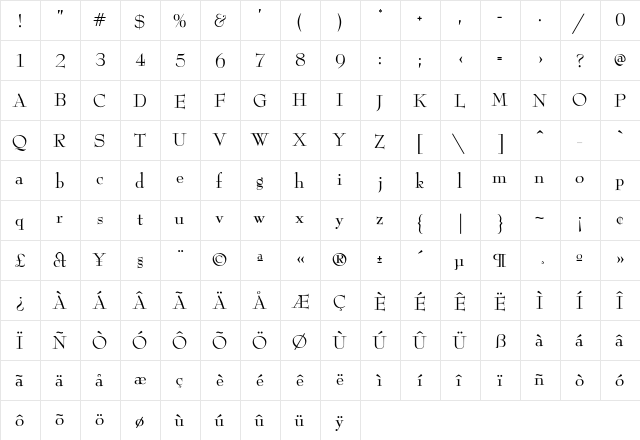
ReedFont Regular
Design Context for ReedFont Typeface
ReedFont takes a measured approach to typography — its balanced proportions and neutral character make it a reliable workhorse for both digital and print work.